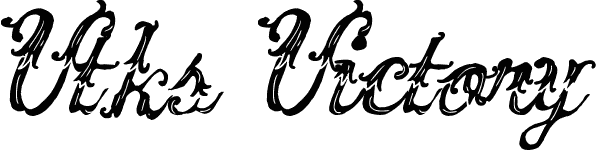
Victory Fonts
Victory is Forever Fonts Inspirations The Design
This font was particularly crafted for those who need a beautiful and refreshing look to their designs. With multilingual feature and style variations, this typeface would further enhance the aestethical aspect of your work.visit our website : Cozyfonts foundry is tom’s intro into the world of font design.
Download the the victory font by display studio. Victory script is the sixth font family created by american graphic designer tom nikosey. Although we have the largest database of fonts, the search for a font from an image gets mixed results like the image above.
Belgium Victory Is Pua Encoded Which Means You Can Access All Of The Amazing Glyphs And Ligatures With Ease!
Add it confidently to your favorite creations and let yourself be amazed by the outcome generated. The victory is an amazing handwritten font. Tom specializes in lettering, typographic design, illustration for branding.
Montana Victory Is A Chic, Refined Script Font That Emanates Sophistication And Elegance.
It’s perfect for logos, posters,. 35 professional victory fonts to download 20,000+ best fonts download belgium victory is a lovely and delicate script font that exudes elegance and class.